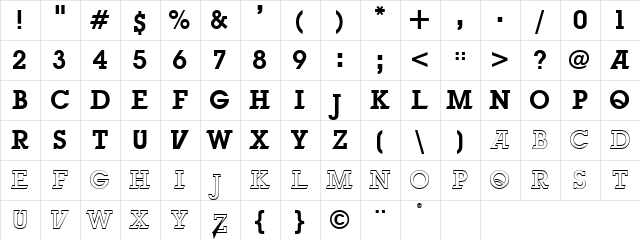
UNbreakABLE Regular
Design Context for UNbreakABLE Typeface
UNbreakABLE takes a measured approach to typography — its balanced proportions and neutral character make it a reliable workhorse for both digital and print work.